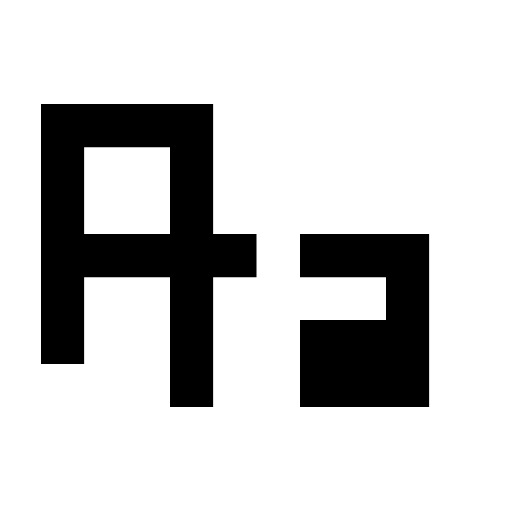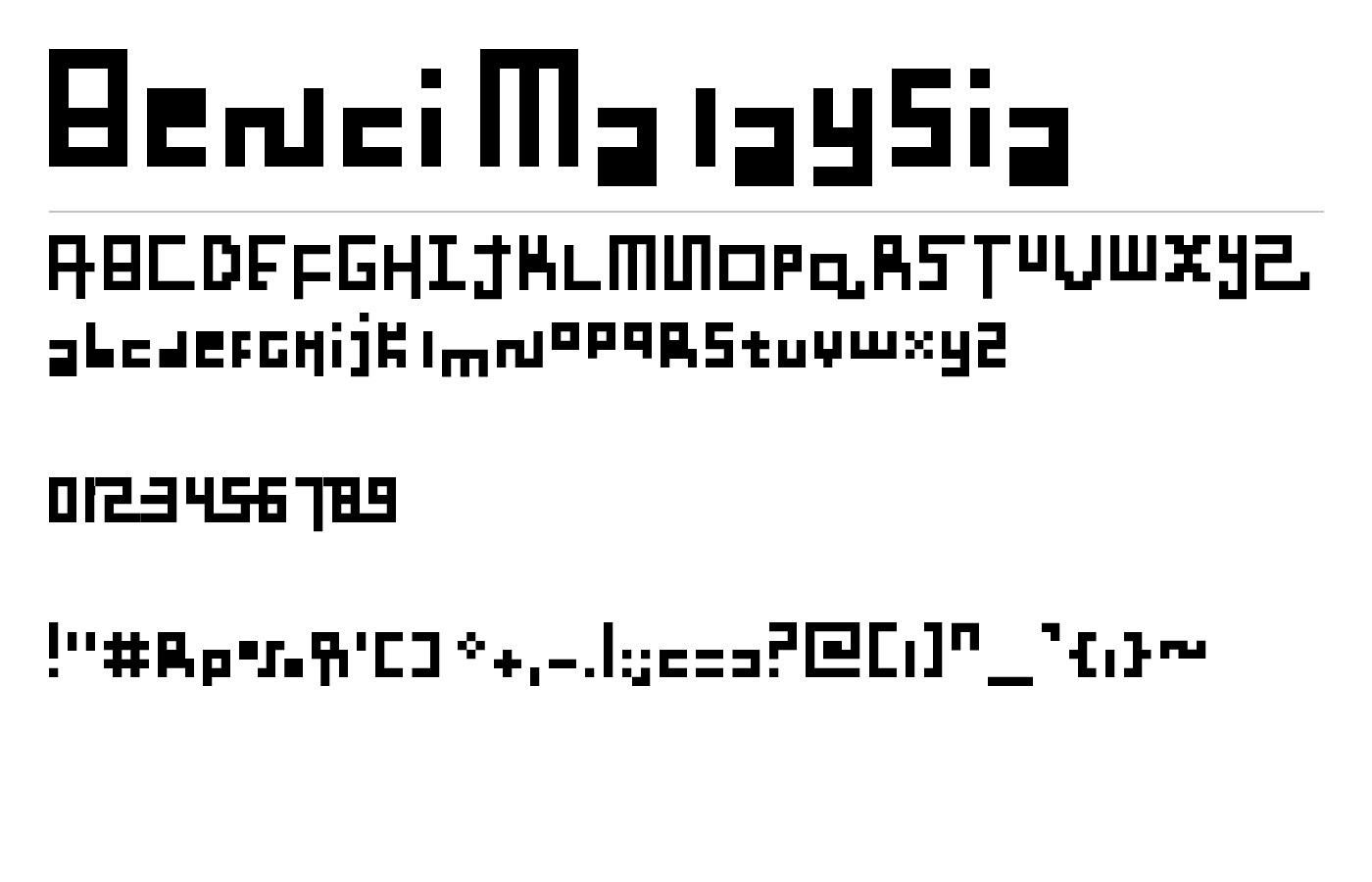
Benci Malaysia is a unique, blocky sans serif font with a digital, pixel-art aesthetic characterized by sharp angles and uniform stroke widths. Its condensed, geometric letterforms and high x-height give it a futuristic, tech-inspired vibe, making it ideal for creative headlines, posters, and branding that seeks a bold, modern edge. This font works best where a distinctive, retro digital style is desired, such as in video game graphics, tech-related projects, and experimental editorial designs.
| Font family | Benci Malaysia Font |
| Designer | Adien Gunarta |